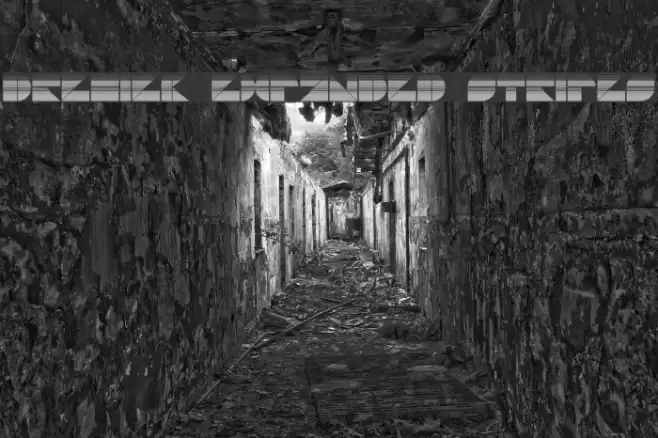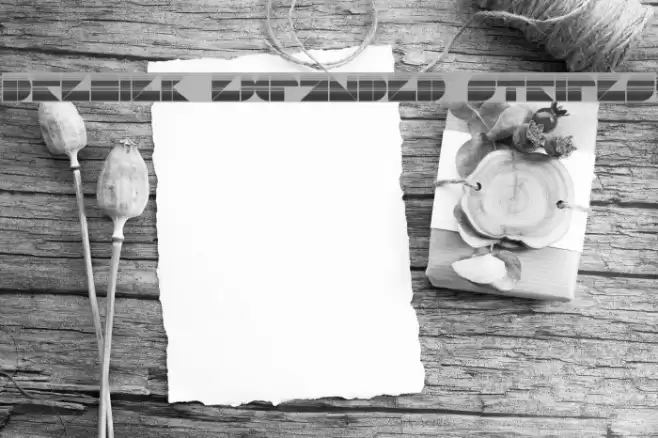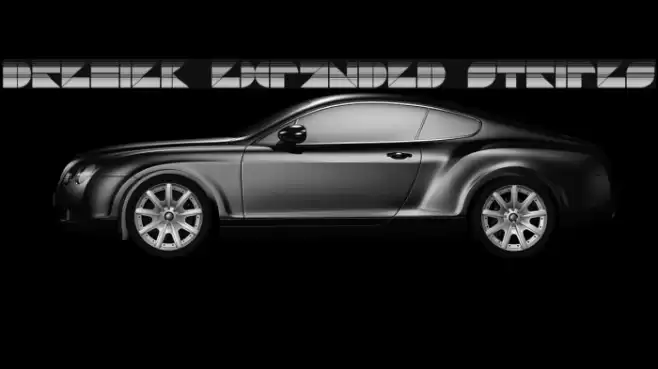
Drebiek Expanded Stripes Font
Drebiek Expanded Stripes Description
This font features a bold and striking design with horizontal stripes running through each character, creating a dynamic and futuristic appearance. The letters are wide and expanded, giving them a strong presence on the page. The geometric shapes are consistent throughout, with sharp angles and clean lines that enhance its modern aesthetic. The uppercase and lowercase letters maintain a uniform style, while the numbers and special characters integrate seamlessly into the overall design. This font's unique striped pattern makes it stand out, adding a layer of visual interest and complexity.
A bold, striped font with a futuristic and geometric design from Decorative fonts.
- Proposed Projects: Ideal for branding, posters, and digital media where a modern and eye-catching typeface is needed.